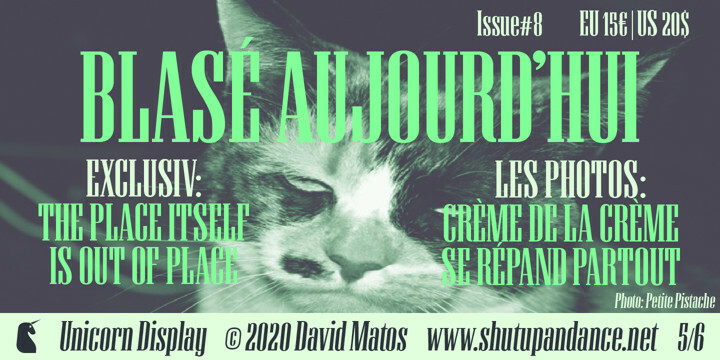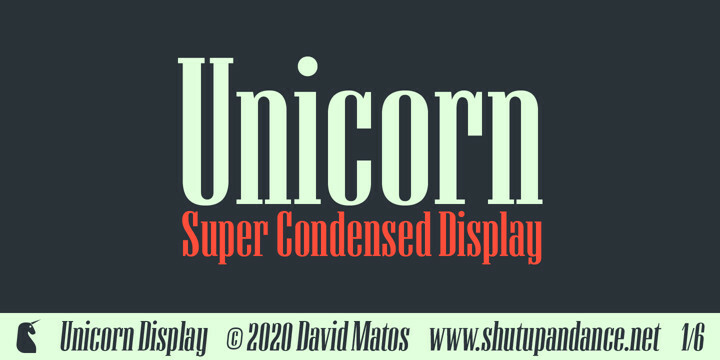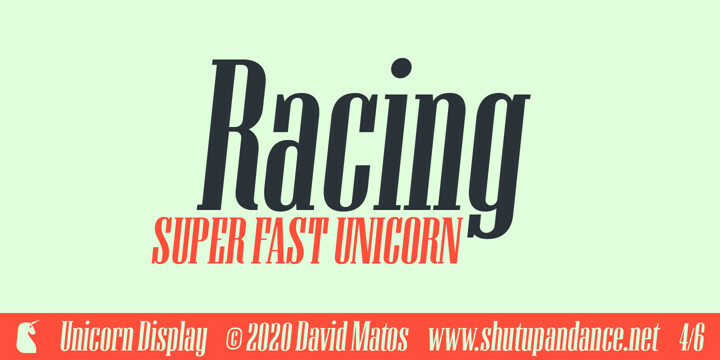
Unicorn Font Family
Unicorn is a super-condensed Display font with a subtle dramatic flair that works especially well in titles, headers and editorial design. It was firstly inspired by a lowercase set seen on a furniture ad in Domus (the architecture magazine) #192, from 1943. For maximum drama, use with a bright & smart colour palette. Appointed by the Unicorn. Of course.